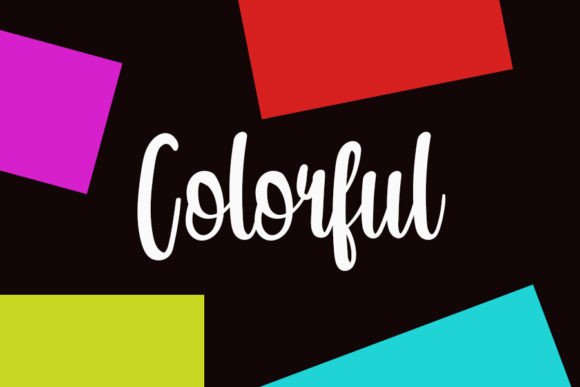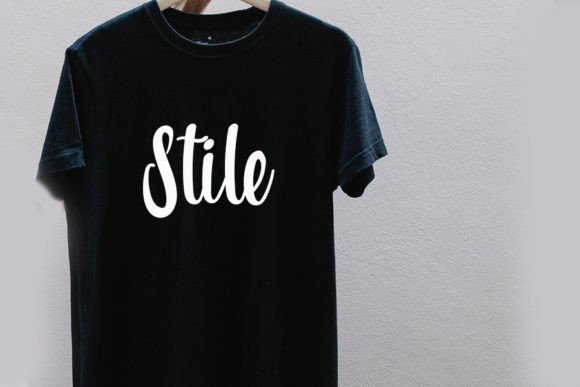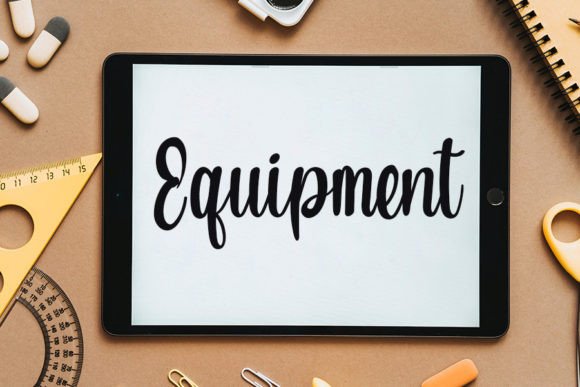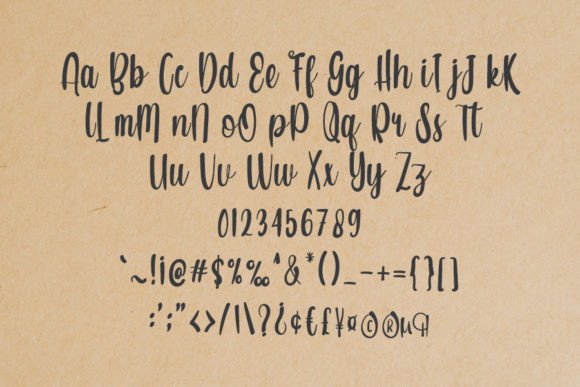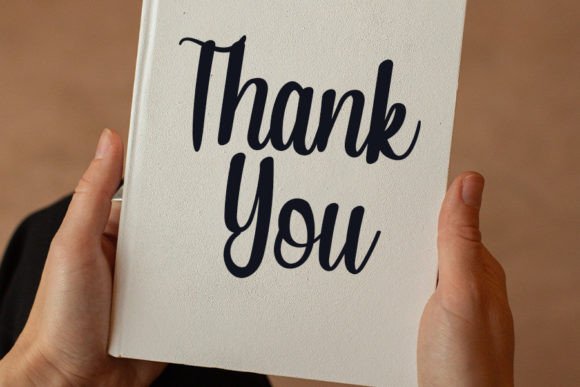
Introducing Continews Font: The Sweet and Delicate Handwritten Font for Romantic Designs
Are you a designer or crafter looking for a font that can add a touch of romance and personality to your designs? Look no further than Continews Font! This sweet and delicate handwritten font is perfect for creating beautiful wedding invitations, cards, and other designs that require a personal and loving touch.
What Makes Continews Font So Special?
Continews Font is a dainty and joyful font that is sure to capture the hearts of anyone who sees it. Its delicate and handwritten style makes it perfect for designs that require a touch of elegance and sophistication. Whether you’re creating wedding invitations, greeting cards, or other romantic designs, Continews Font is the ideal choice.
Key Features of Continews Font
• Sweet and delicate handwritten style: Continews Font has a unique and charming handwritten style that is sure to add a touch of romance to your designs.
• Dainty and joyful: This font is perfect for creating designs that require a light and airy feel, such as wedding invitations and greeting cards.
• Romantic and personalized touch: Continews Font is designed to add a personal and loving touch to your designs, making them extra special.
• Perfect for wedding designs: This font is ideal for creating beautiful wedding invitations, wedding cards, and other wedding-related designs.
• Pair it with other fonts: Continews Font pairs well with other fonts, such as serif and sans-serif fonts. Experiment with different font combinations to create a unique look.
• Use it for headings and titles: Continews Font is perfect for headings and titles, such as wedding invitation titles or card headings.
• Add embellishments: Consider adding embellishments, such as flowers or lace, to your designs to enhance the romantic feel of Continews Font.
Why Designers and Crafters Love Continews Font
Designers and crafters love Continews Font for its unique and charming style. Here are a few reasons why:
• Unique and exclusive: Continews Font is a one-of-a-kind font that will make your designs stand out from the crowd.
• Easily readable: Despite its delicate style, Continews Font is easily readable, making it perfect for designs that require a lot of text.
• Versatile: Continews Font can be used in a variety of designs, from wedding invitations to greeting cards and more.
In conclusion, Continews Font is a sweet and delicate handwritten font that is perfect for designers and crafters looking to add a touch of romance and personality to their designs. Its dainty and joyful style makes it ideal for wedding invitations, cards, and other romantic designs. With its unique and charming style, Continews Font is sure to capture the hearts of anyone who sees it.